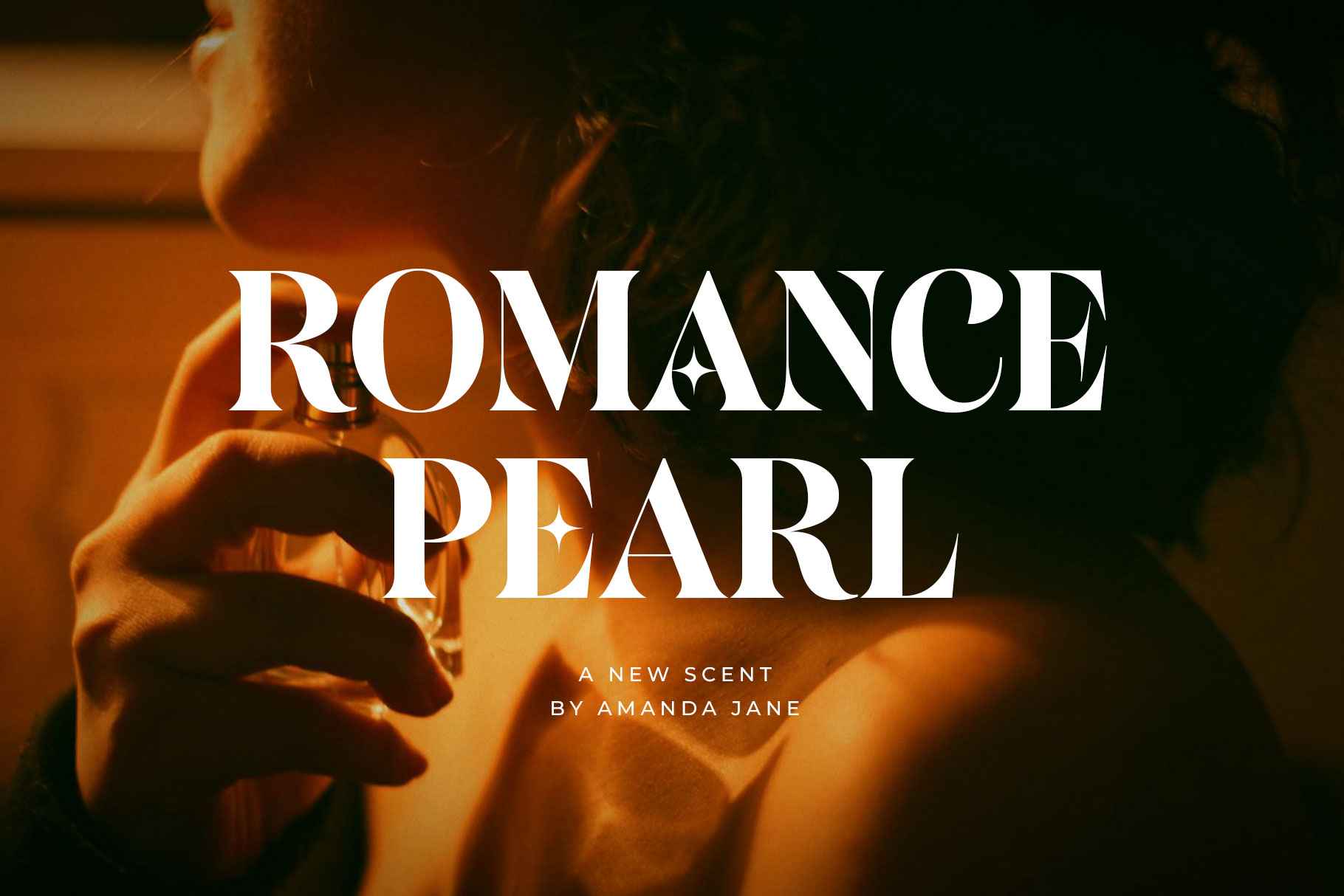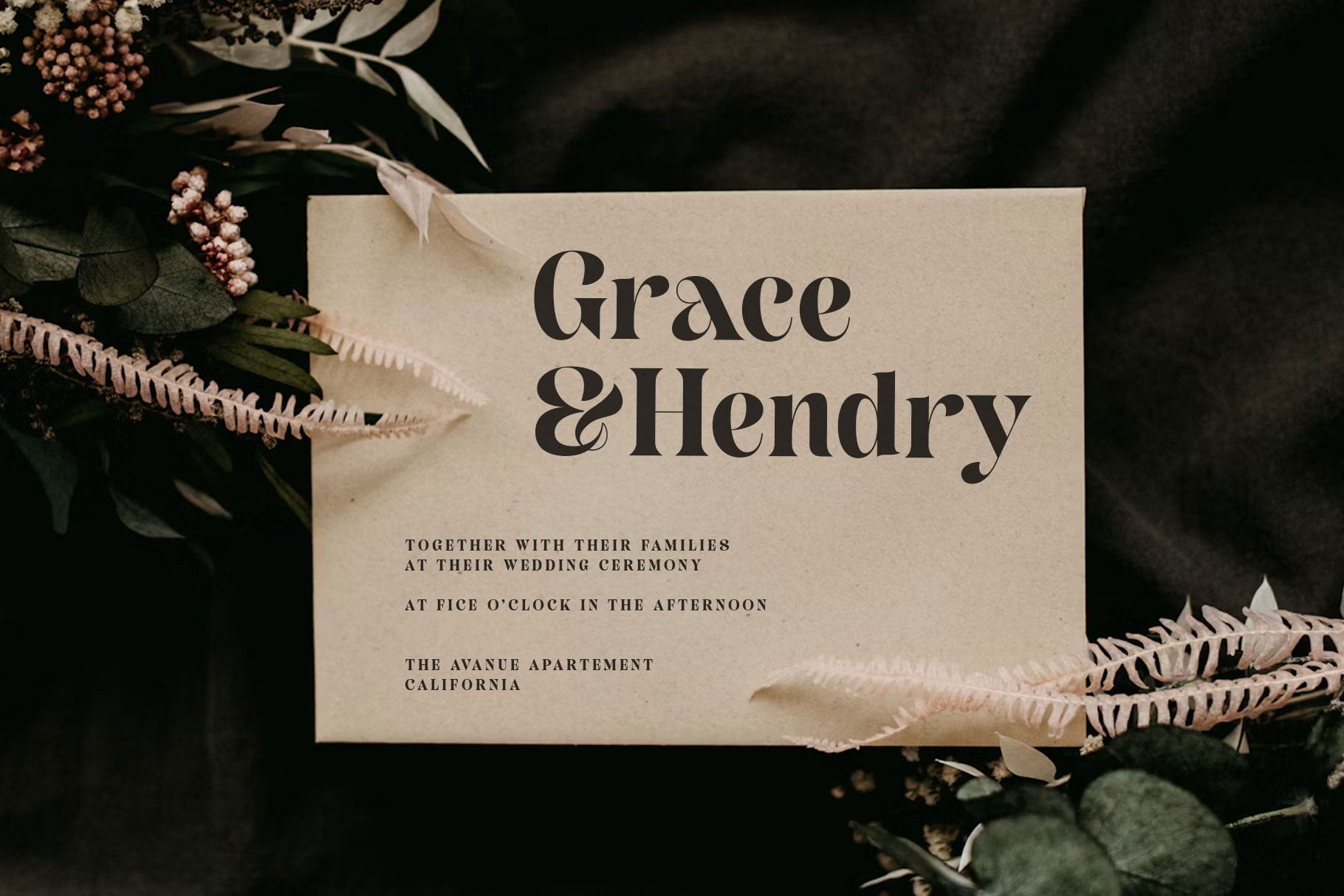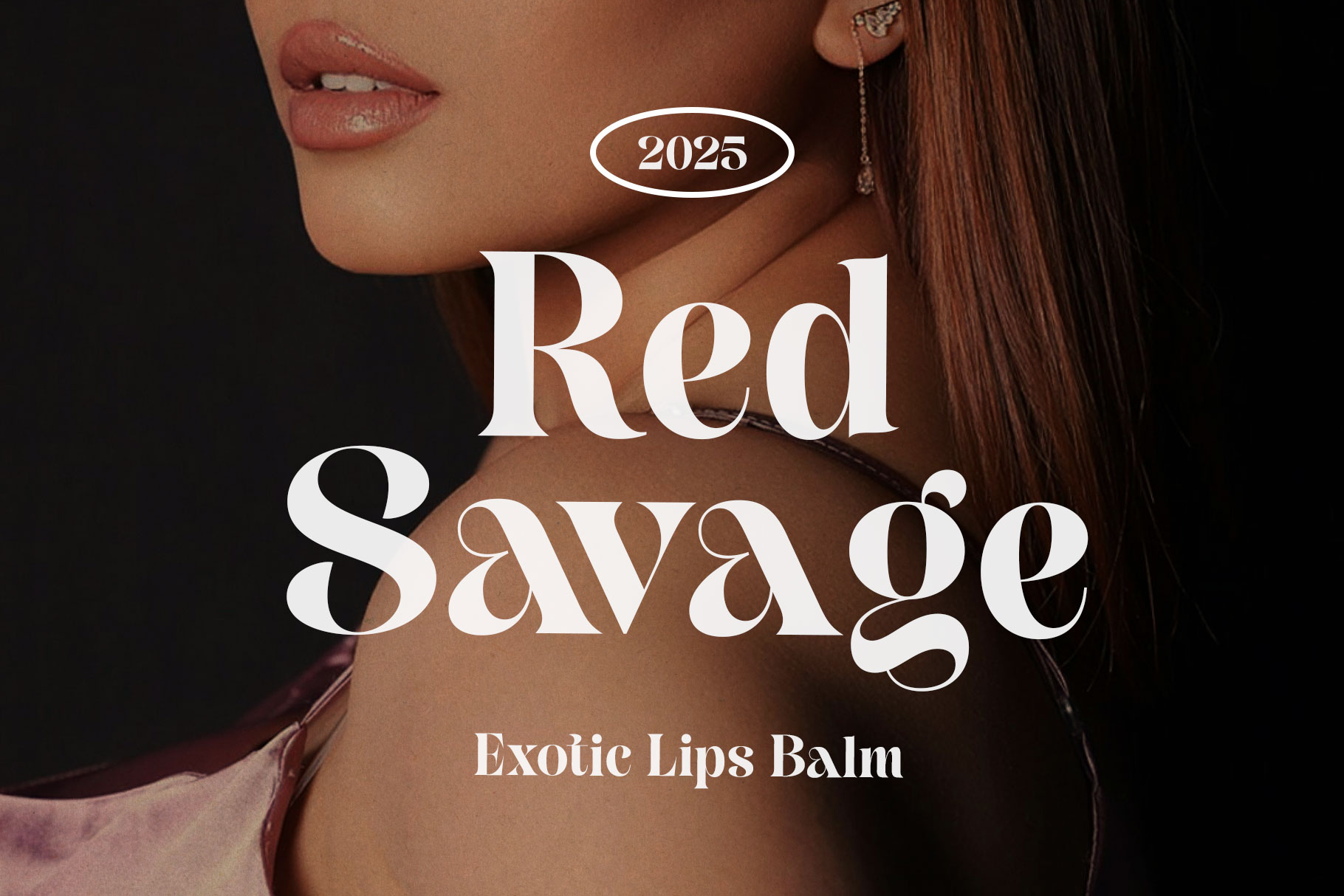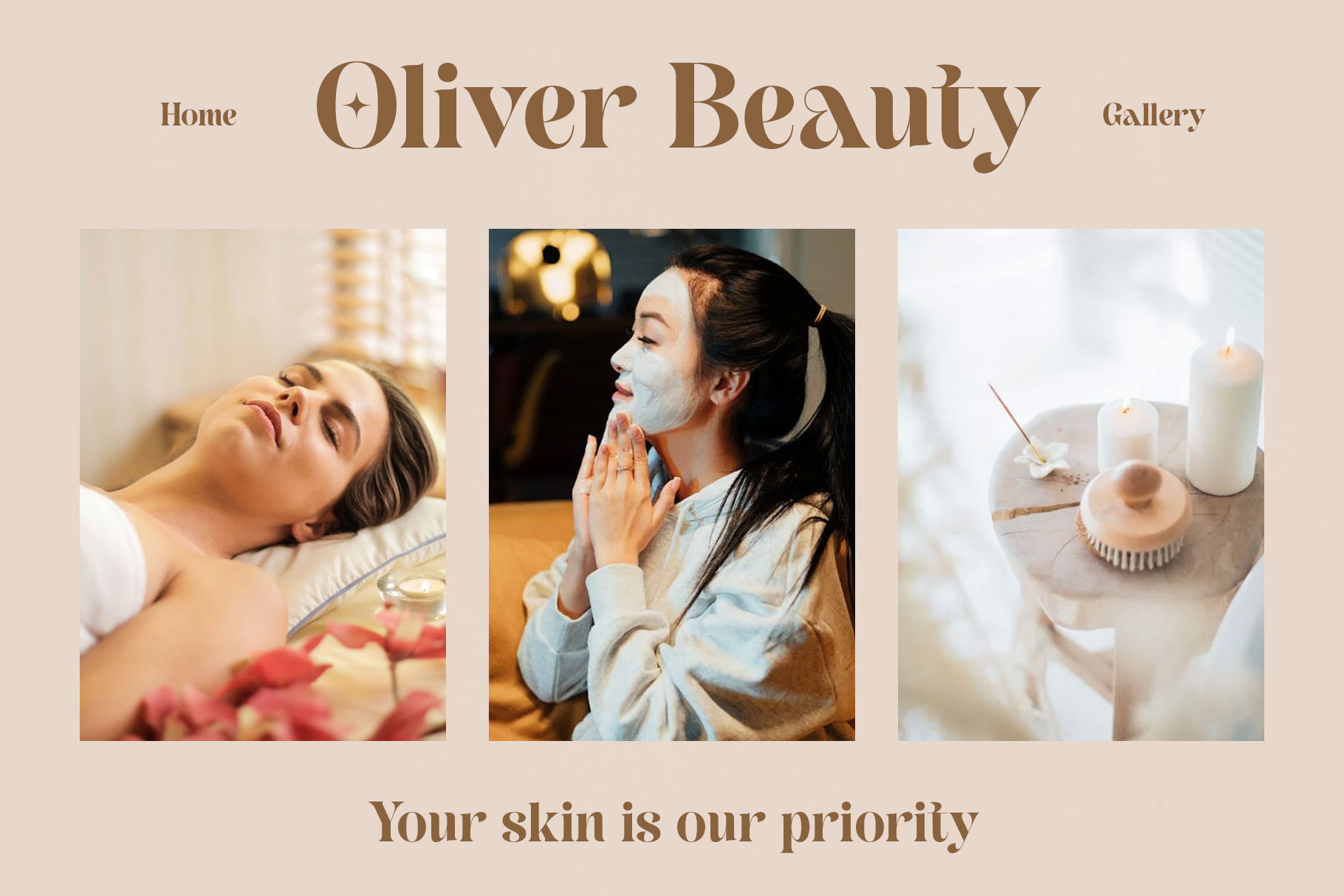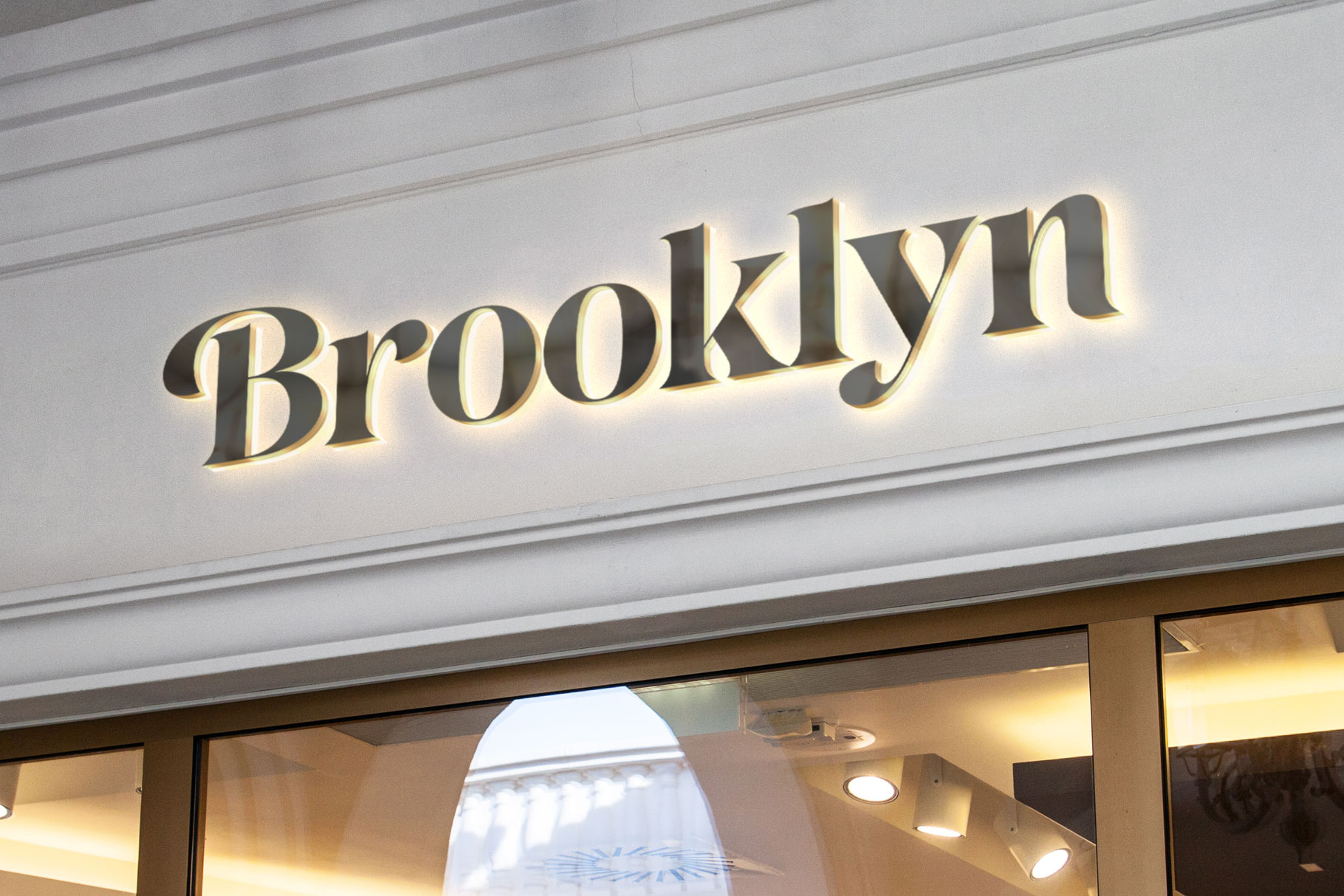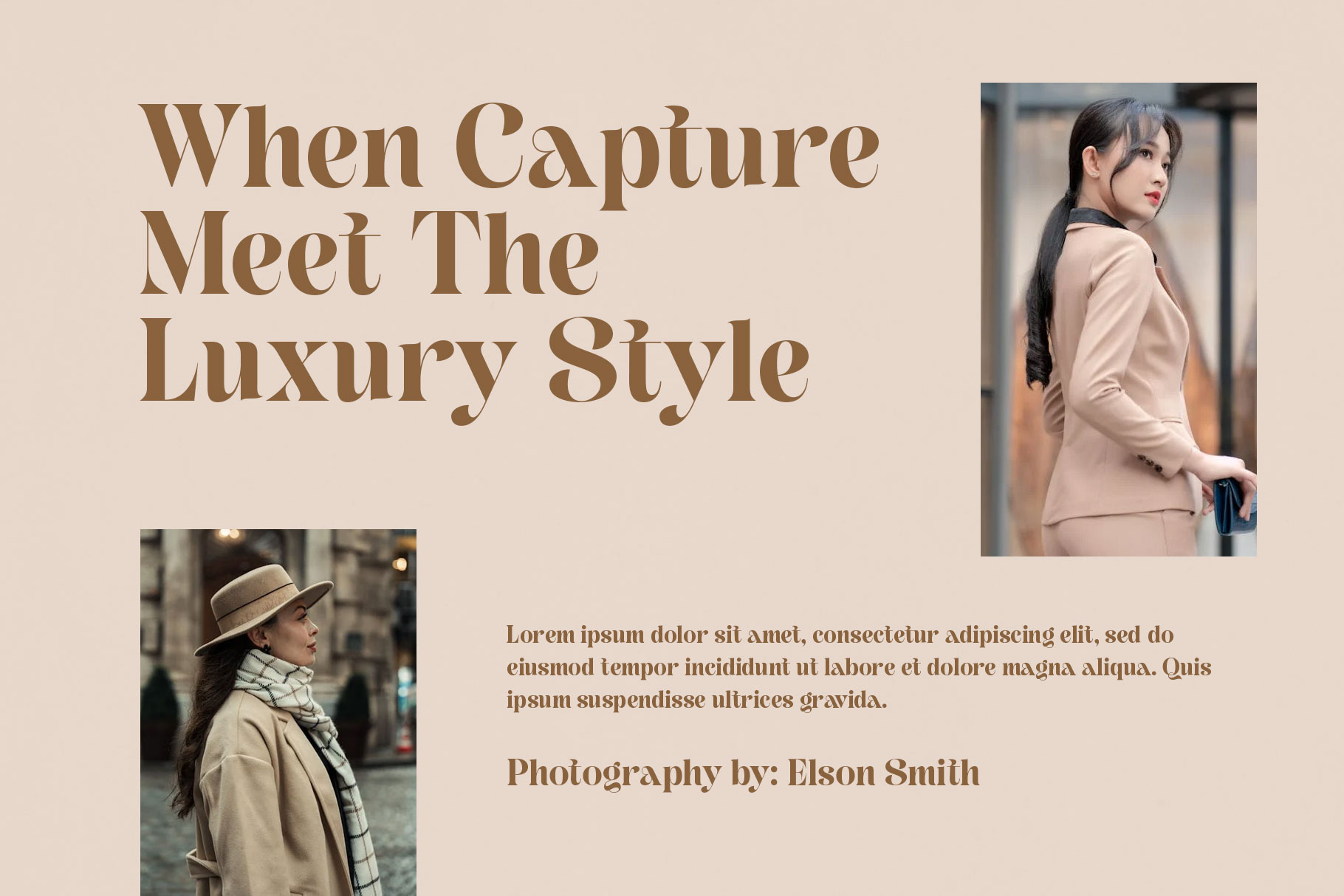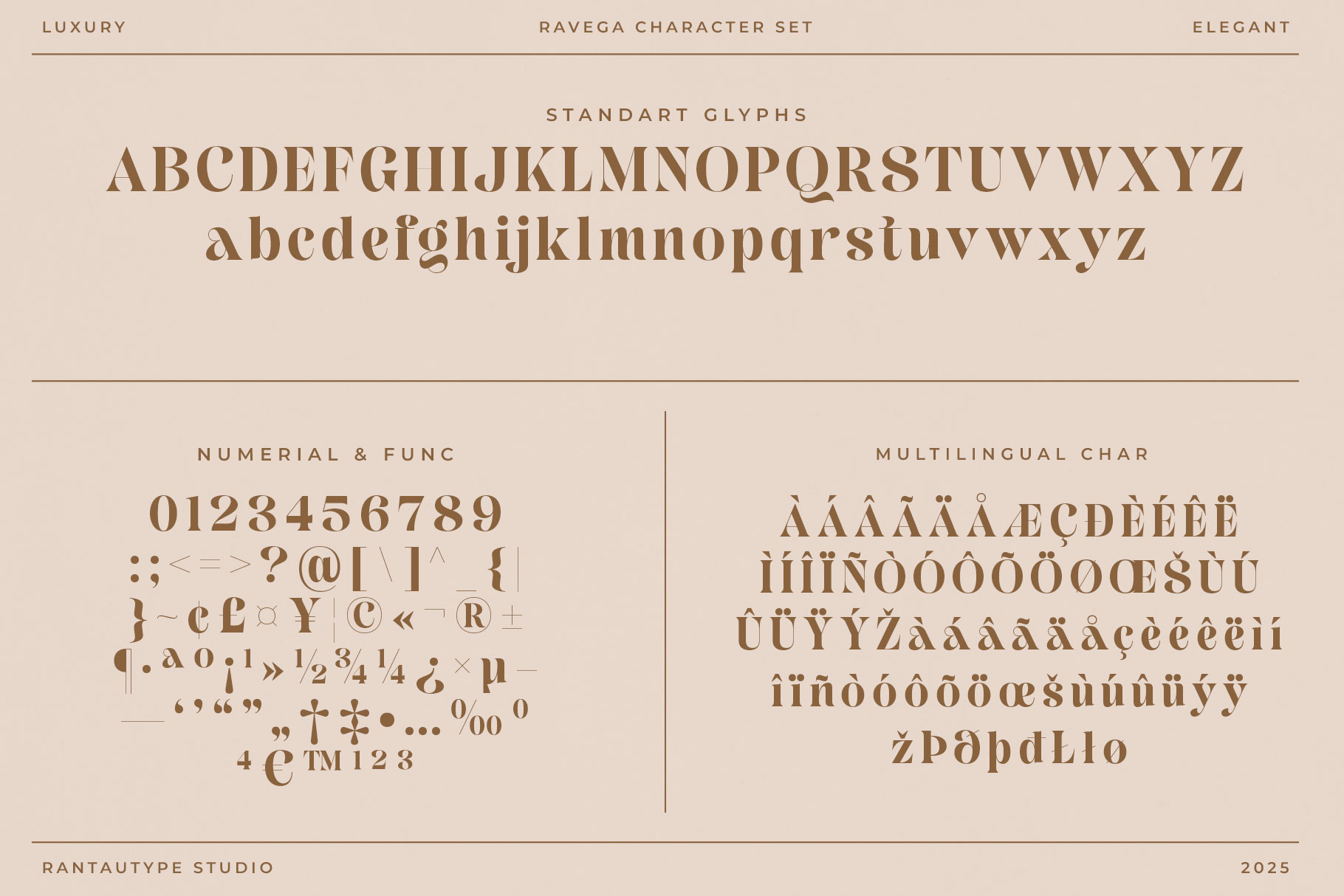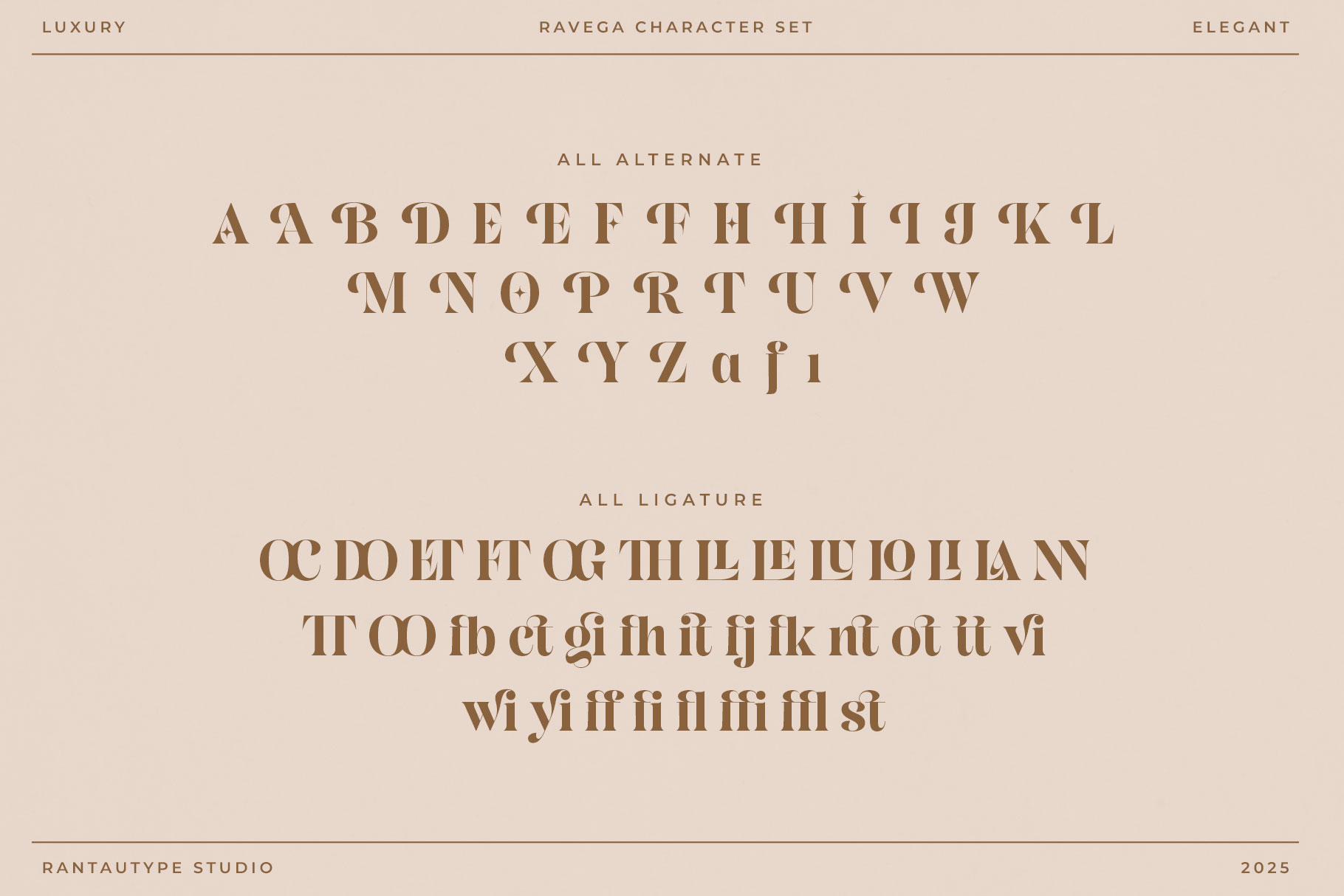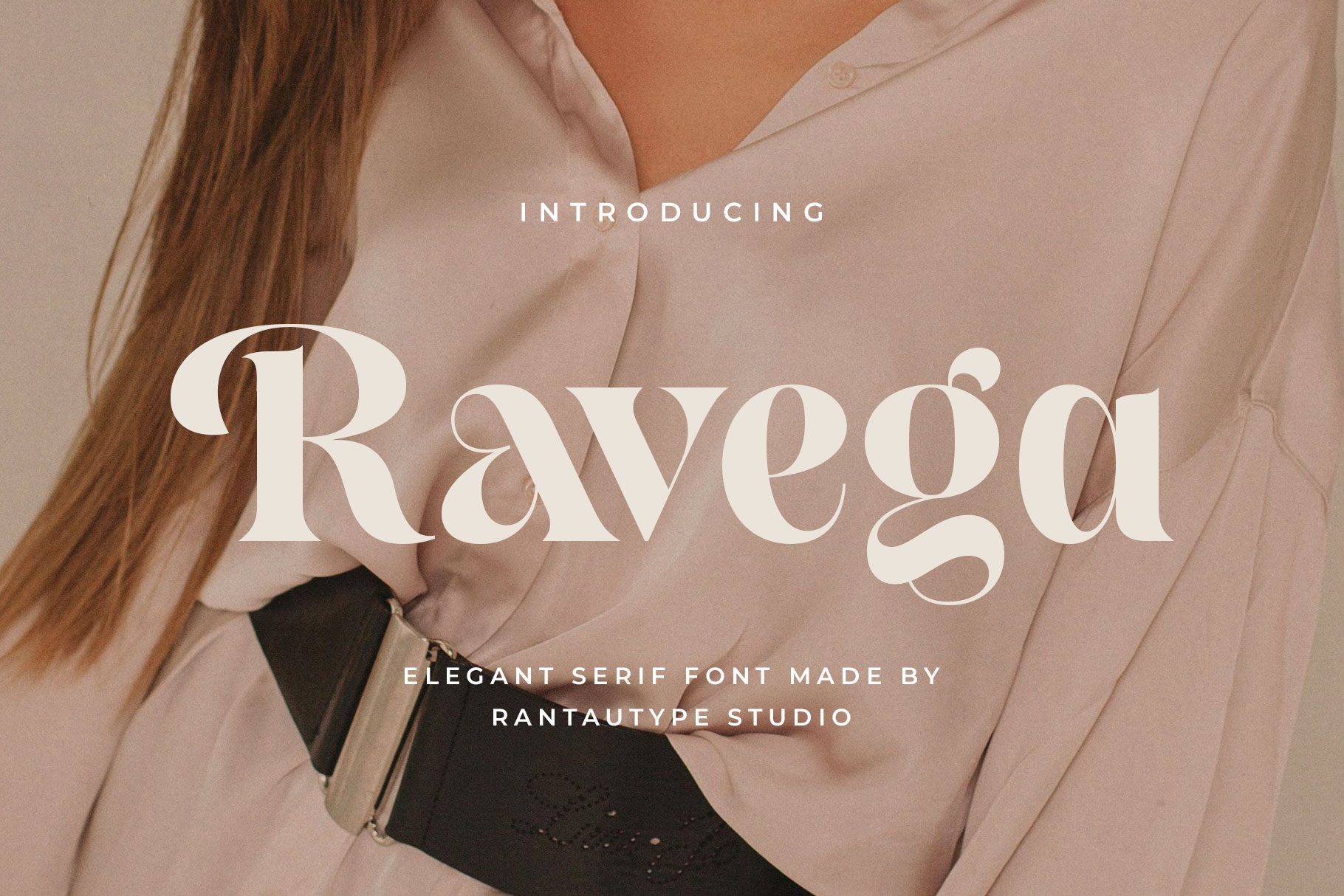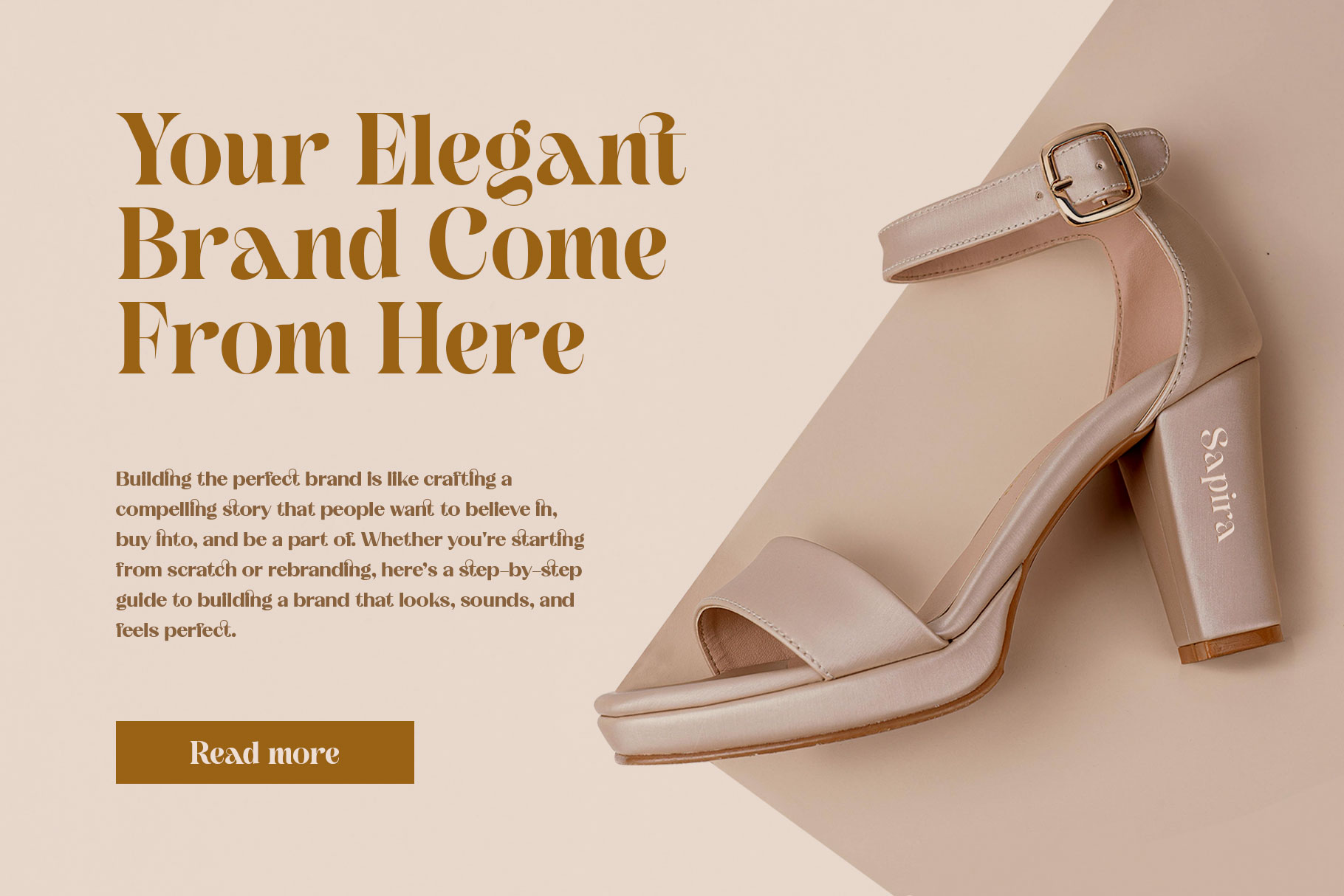
Ravega Elegant Serif Font
Ravega is elegant modern serif font with typically blends classic sophistication with contemporary minimalism. Ravega is a perfectly choice for any creative endeavor, chic, lifestyle design such as logotype, advertisements, watermark on photography, stationery, branding project, display and magazine, invitation, corporate brand, product design, label, business project and many other project with modern touch.